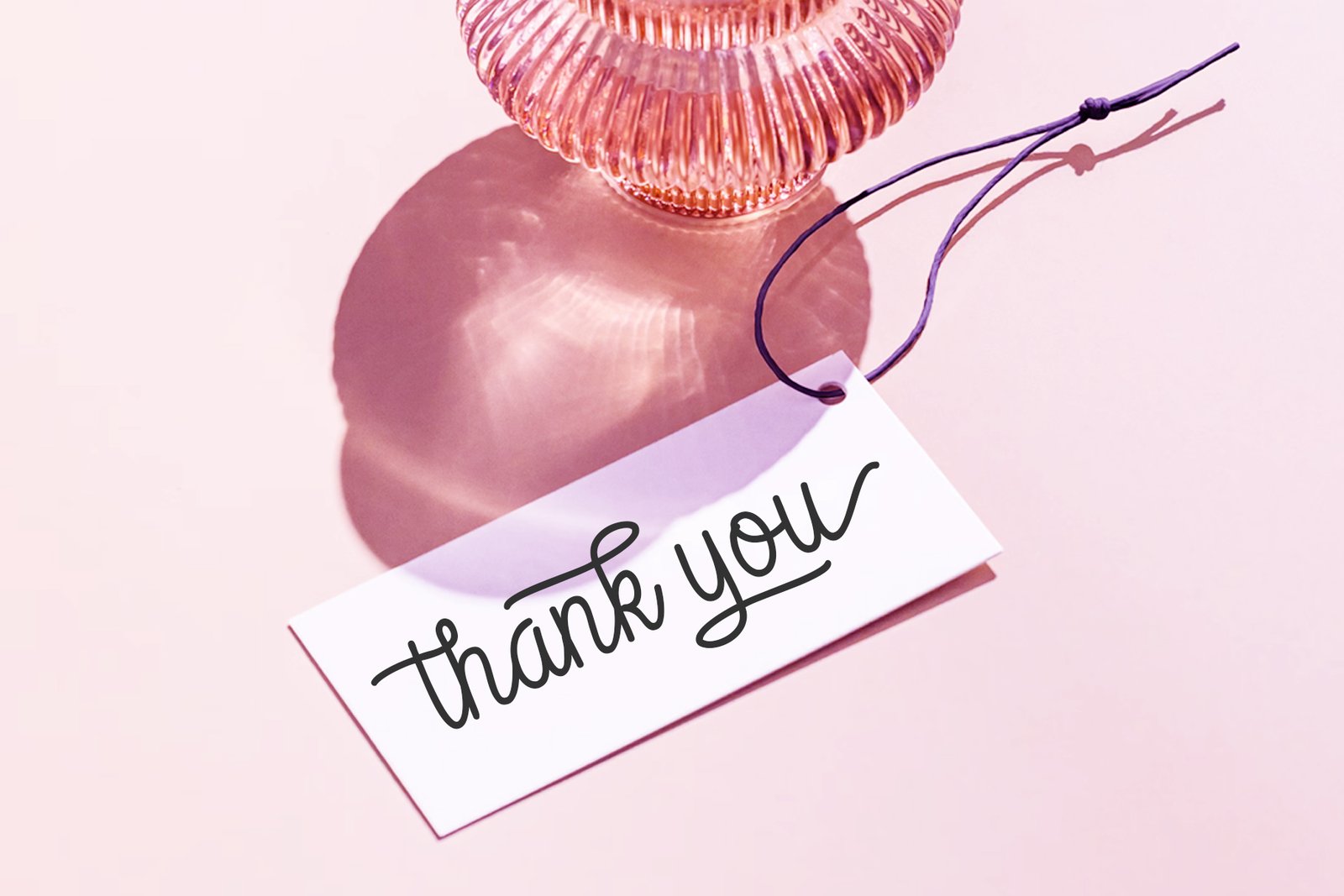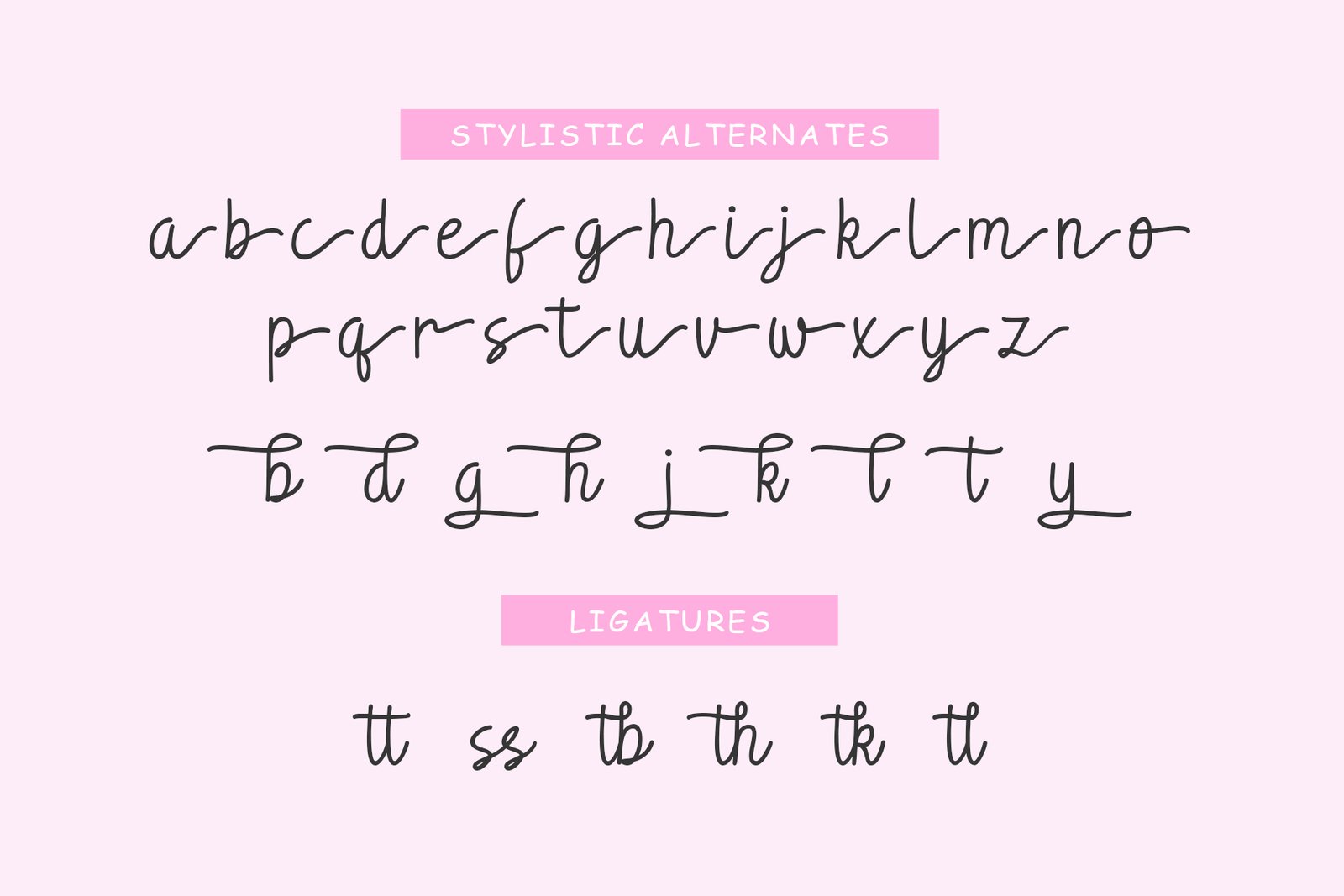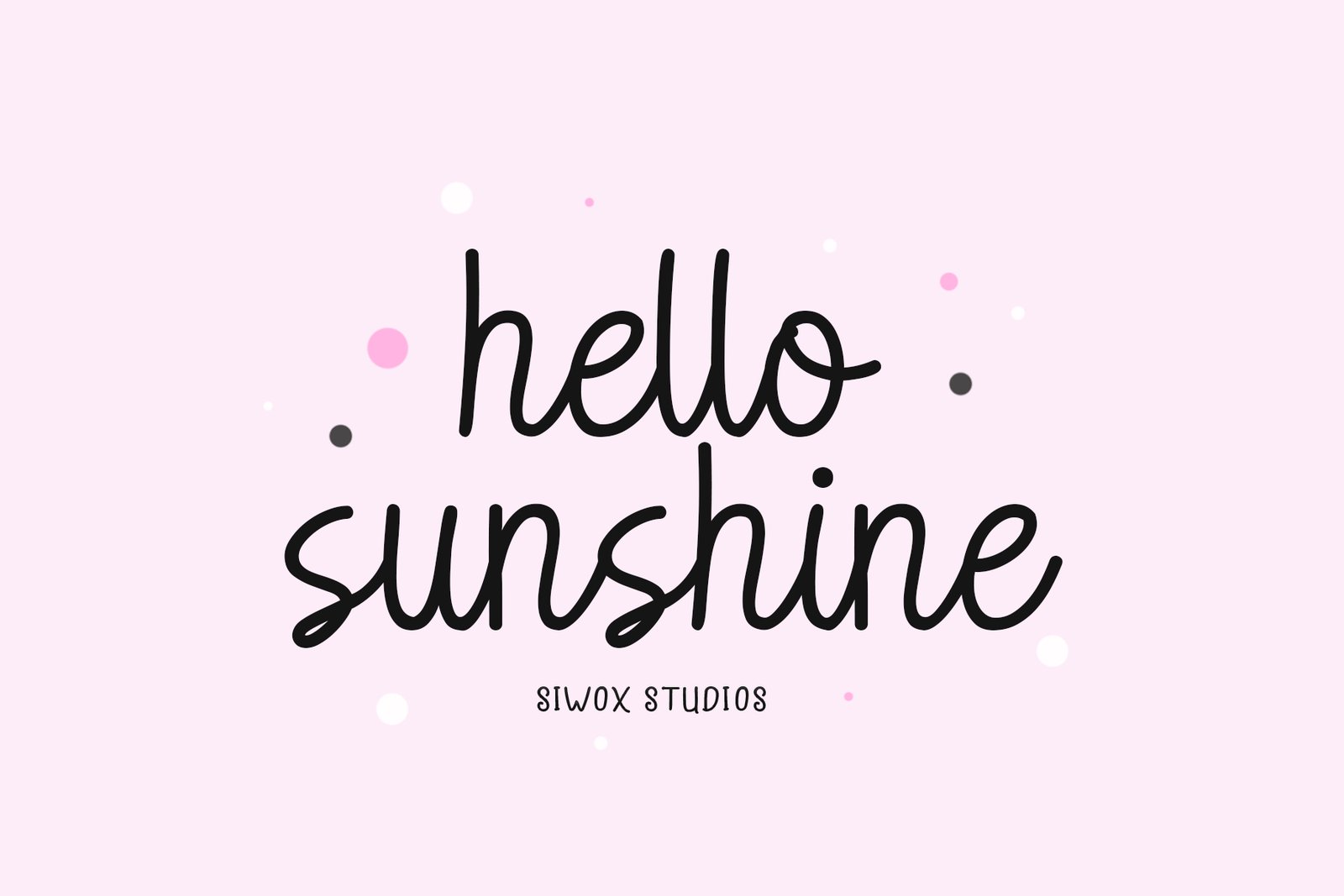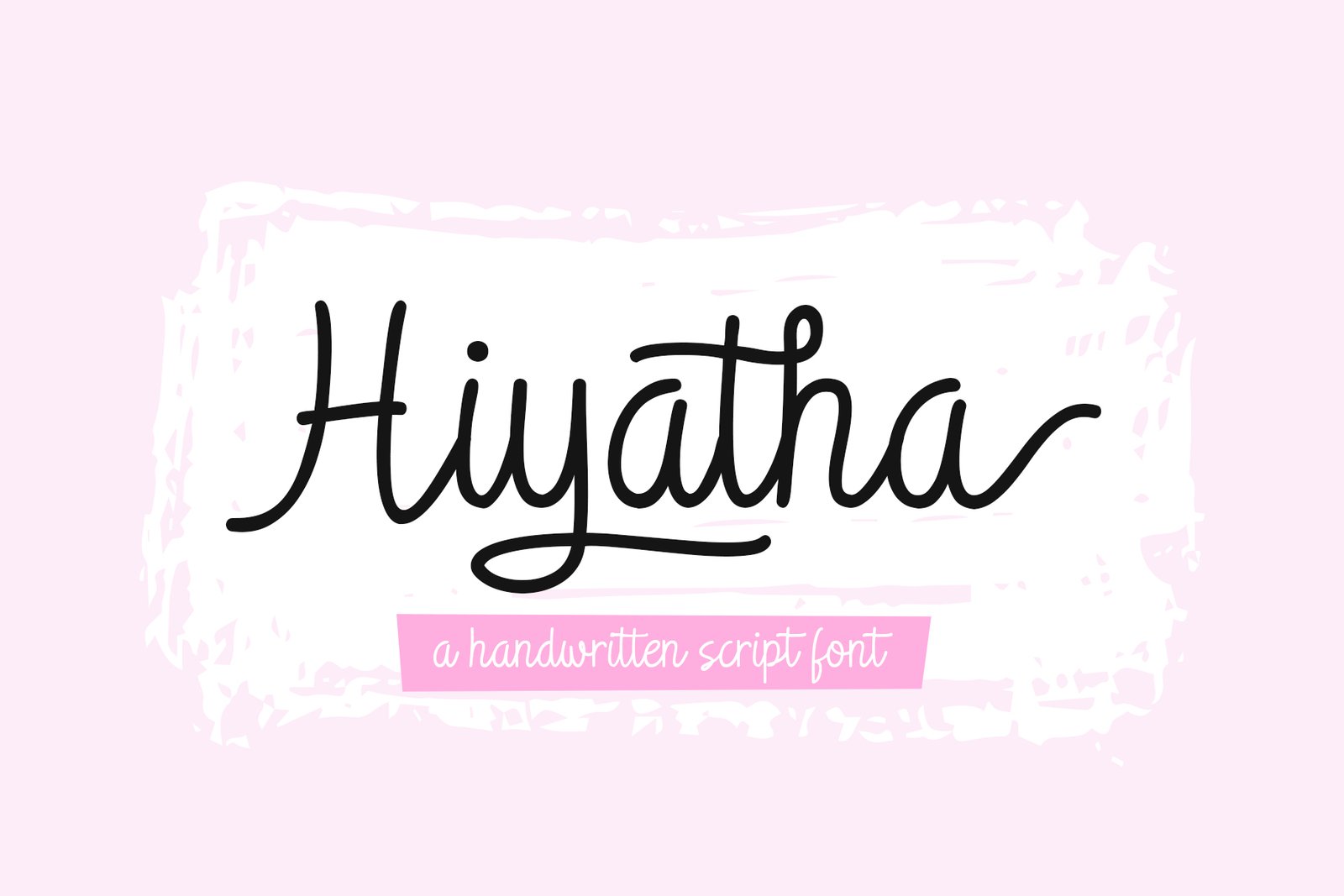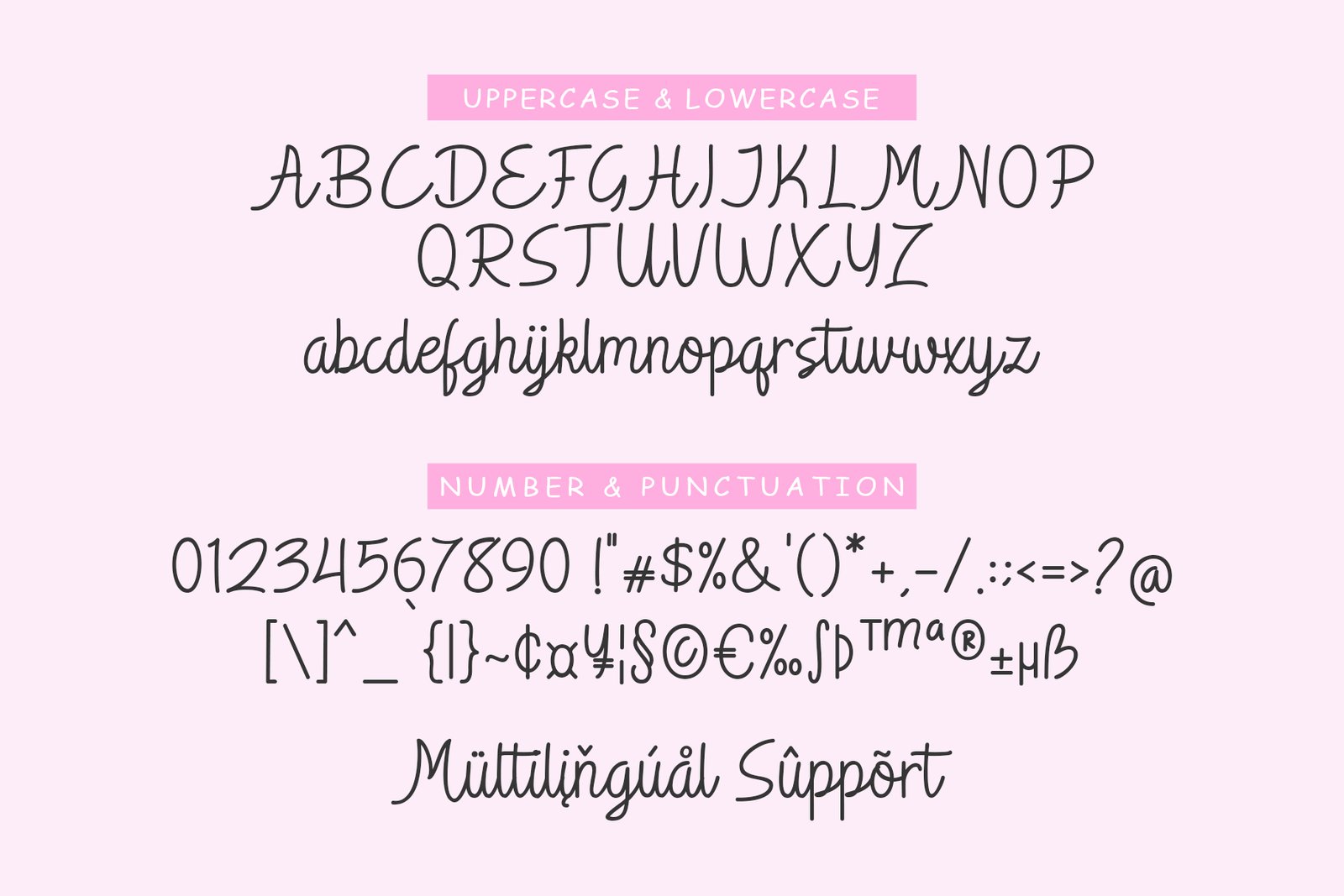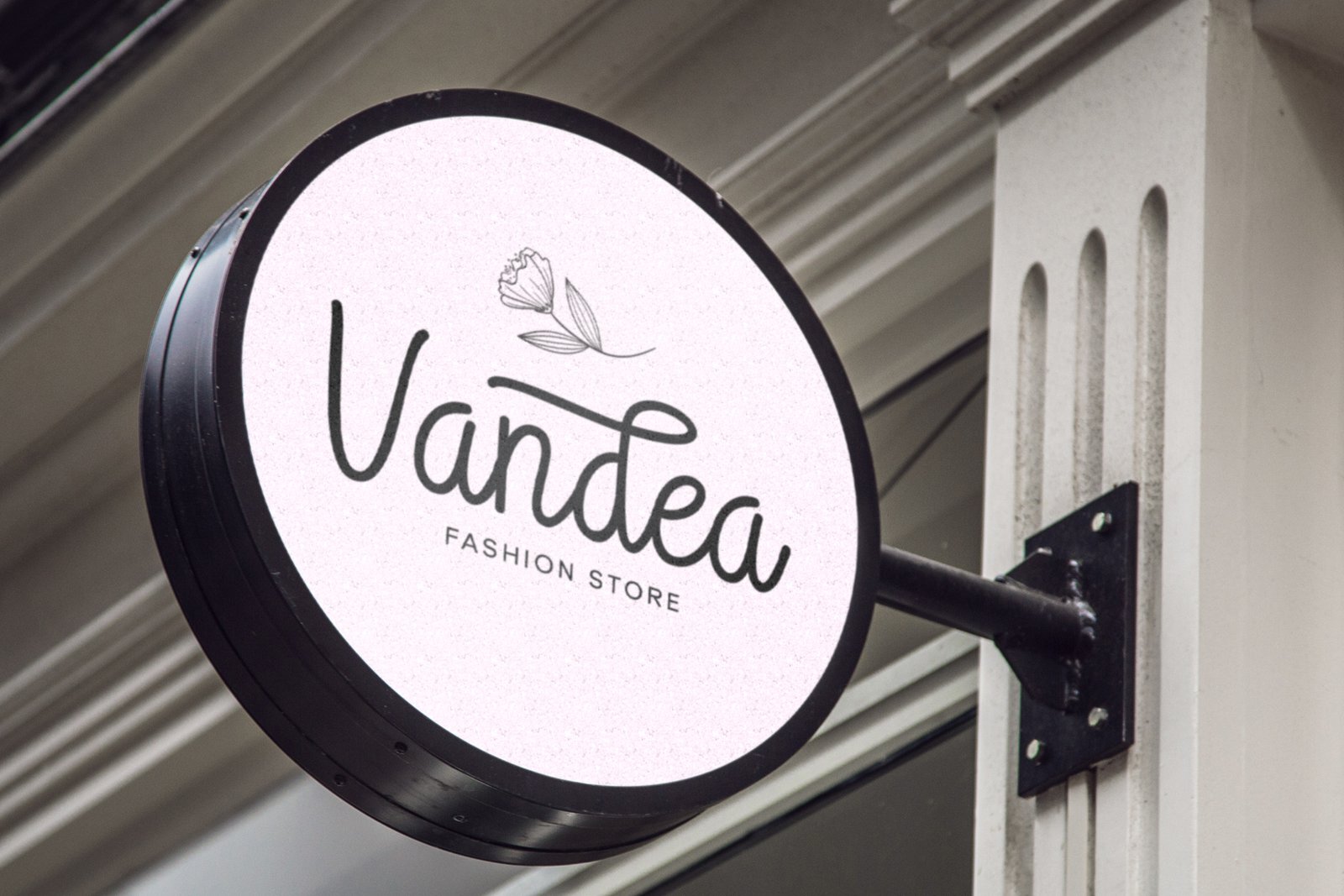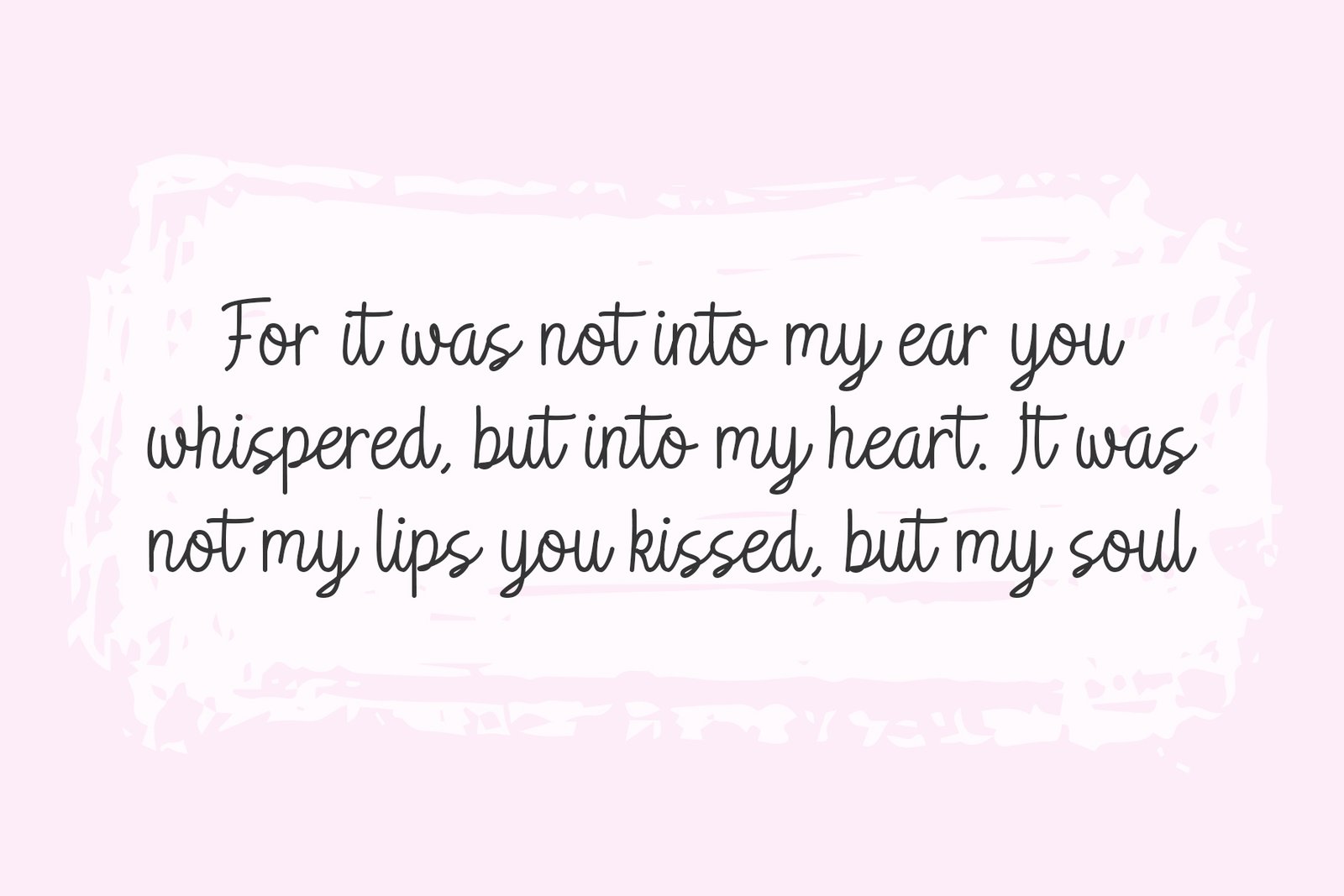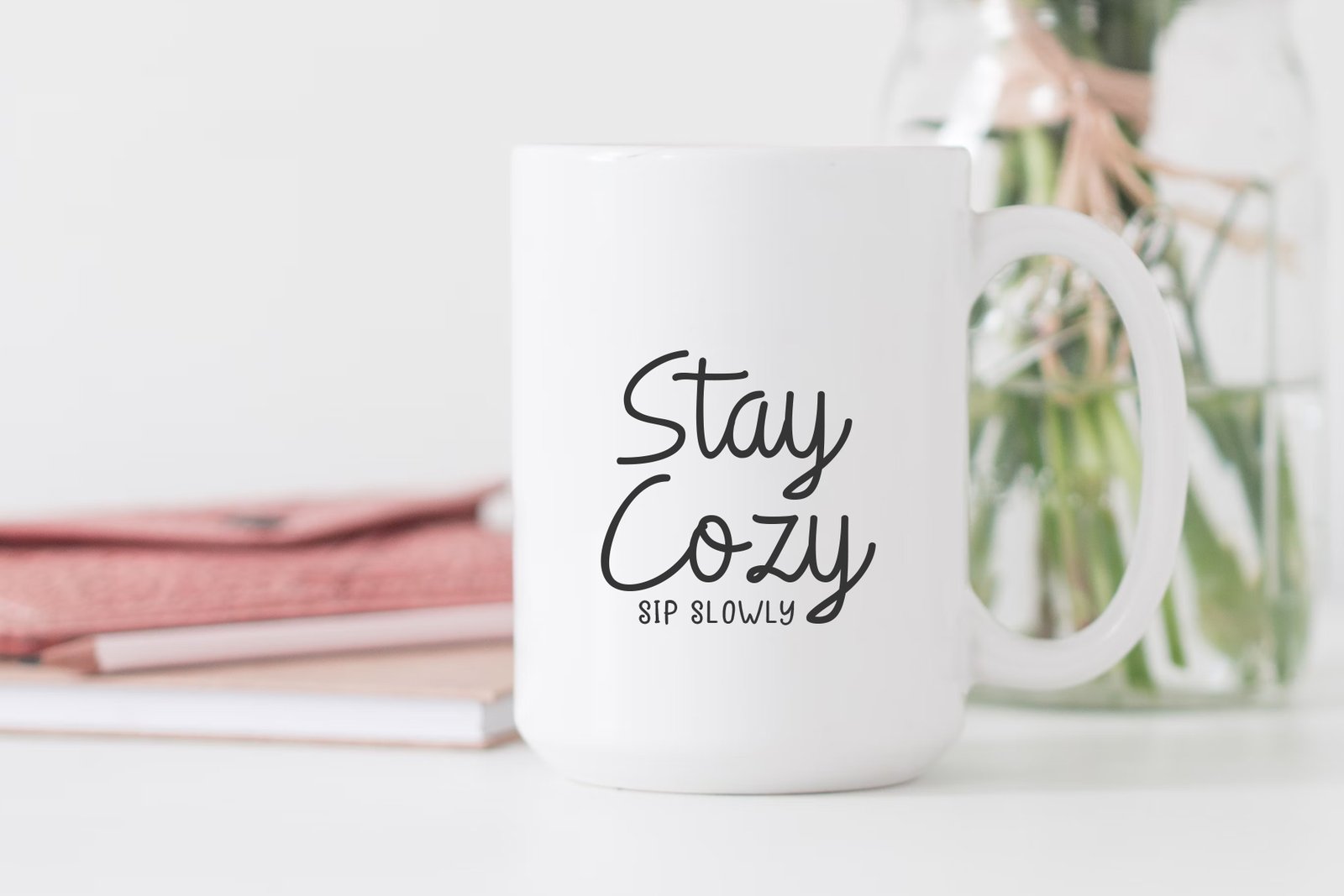
Hiyatha Script - a handwritten font
Hiyatha Script is a beautiful handwritten font with a monoline style. Perfect for logos, branding, farmhouse designs, Cricut projects, SVG files, Canva, GoodNotes, stickers, mugs, and more!
FEATURES:
Uppercase & Lowercase
Number, Symbol & Punctuation
Multilingual Support
Ligatures
Stylistic Alternates